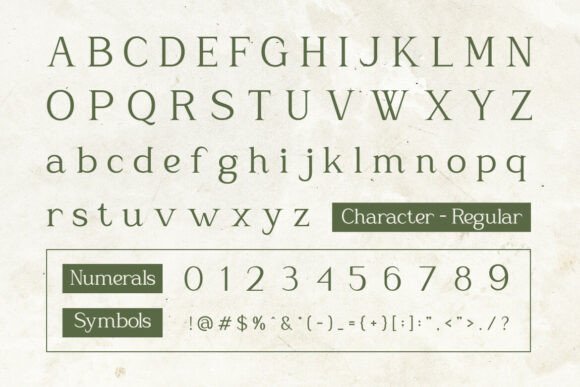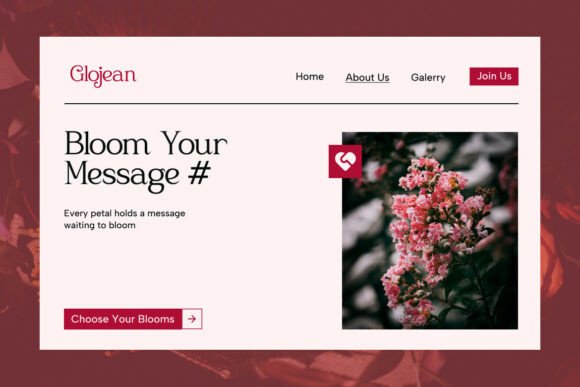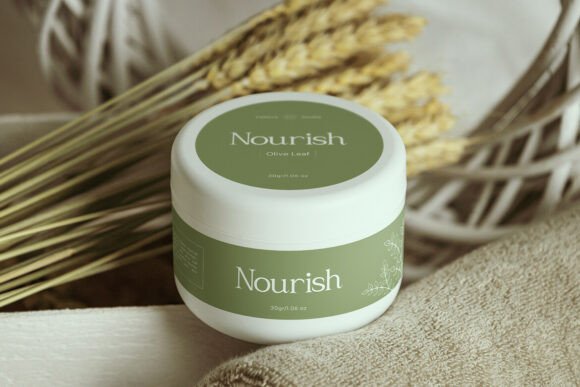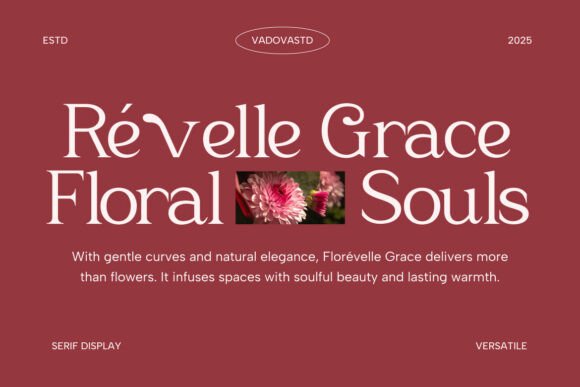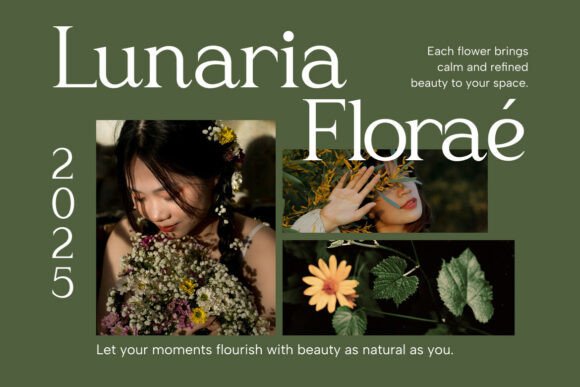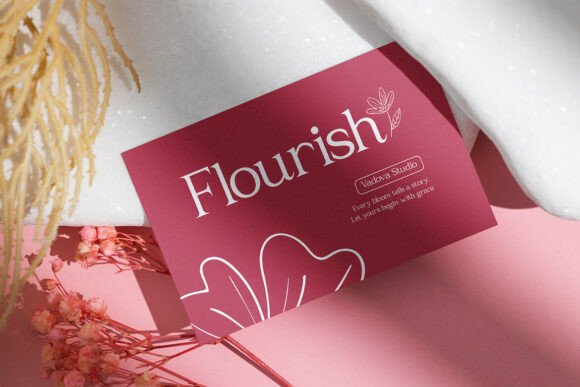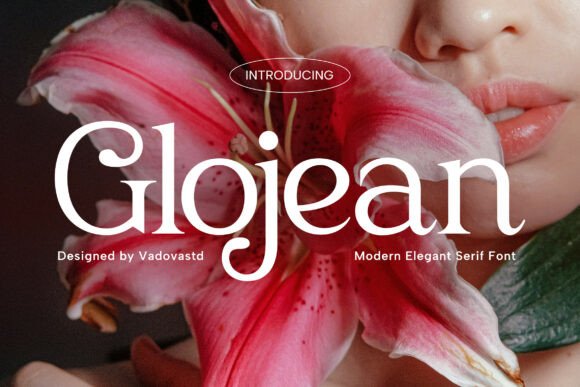
Glojean Font: Elevate Your Design with Elegance and Sophistication
In the world of typography, a font can make or break the aesthetic of a design. For those seeking a typeface that exudes luxury, sophistication, and a touch of modernity, Glojean Font is an exceptional choice. This high-contrast serif typeface is meticulously designed to cater to a wide range of applications, from digital platforms to print materials, making it a versatile tool for designers and crafters alike.
Characteristics of Glojean Font
Glojean Font stands out with its distinctive features:
- Smooth Organic Curves: Glojean boasts fluid, organic curves that lend a sense of elegance and approachability to any design.
- Slender Serifs: The typeface’s slender serifs add a touch of refinement and sophistication, making it perfect for luxury branding and high-end applications.
- Refined Rhythm: Glojean’s design ensures a harmonious flow of text, making it a joy to read in both digital and print formats.
Glojean’s versatility is one of its most compelling attributes. Its classic elegance, combined with modern aesthetics, makes it suitable for a myriad of design projects:
- Luxury Branding: Elevate your brand’s visual identity with a typeface that communicates sophistication and luxury.
- Beauty Packaging: Make your product stand out on store shelves with Glojean’s elegant and refined appearance.
- Fashion Editorials: Add a touch of glamour to your fashion editorials and magazine spreads.
- Wedding Stationery: Bring a sense of luxury and romance to wedding invitations, menus, and other stationery.
- Skincare and Perfume Labels: Enhance your product labels with a sophisticated typeface that conveys quality and elegance.
- Beauty Blogs and Lifestyle Magazines: Engage your audience with a clean, elegant, and readable typeface.
- Boutique Logos: Create a lasting impression with a logo that embodies luxury and refinement.
- Cosmetic Ads: Stand out in the competitive beauty market with ads that exude sophistication.
- Soft Minimal Branding: Achieve a subtle yet luxurious brand image with Glojean’s understated elegance.
- Portfolio Covers: Showcase your work with a professional and elegant typeface.
- Social Media Posts and Quotes: Elevate your digital content with a touch of sophistication.
- Signature Titles: Add a personal touch to your signature titles with a typeface that combines timelessness with a contemporary feel.
Why Choose Glojean Font?
Glojean Font is more than just a typeface; it’s a design statement. Here’s why designers and crafters are drawn to it:
- Timeless Appeal: Glojean’s classic roots ensure it remains relevant and stylish for years to come.
- Contemporary Aesthetic: Its modern touch makes it suitable for designs that require a current and fresh look.
- High Contrast: The typeface’s high contrast makes it highly legible, even at smaller sizes.
- Digital and Print Friendly: Glojean’s design considers the nuances of both digital screens and print materials, ensuring it performs well across mediums.
Glojean Font is a powerful tool in the arsenal of designers and crafters looking to imbue their projects with luxury, elegance, and a modern edge. Its versatility across various design applications, combined with its timeless yet contemporary appearance, makes it an excellent choice for those aiming to elevate their design’s aesthetic. Whether you’re working on luxury branding, beauty packaging, or digital content, Glojean Font offers the perfect blend of classic sophistication and modern flair.